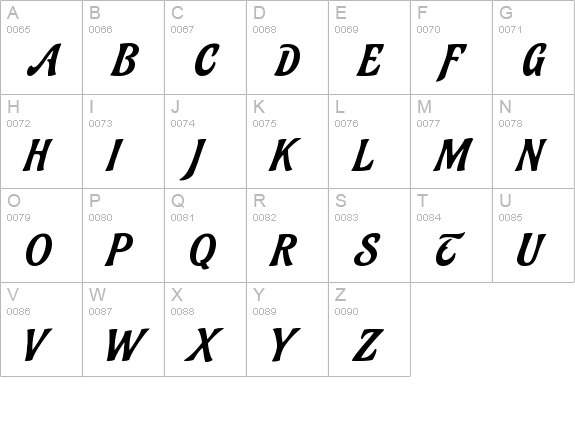
Felipe Font Details
Felipe Font is a versatile and elegant typeface designed to enhance your design projects with a touch of sophistication. Its sleek lines and modern style make it suitable for a wide range of applications, from logos to branding materials, editorial designs, and more. With its clean and crisp appearance, Felipe Font exudes professionalism and refinement, making it a perfect choice for those seeking a polished and sophisticated look. Best of all, Felipe Font is completely free to download at FontsMarket.com, providing you with an easy and convenient way to access this high-quality typeface for your creative endeavors. Whether you're a graphic designer, a business owner, or a creative enthusiast, Felipe Font offers a seamless and stylish solution to elevate your projects and make a lasting impression. Download Felipe Font today and unlock the endless possibilities it has to offer for your design needs.